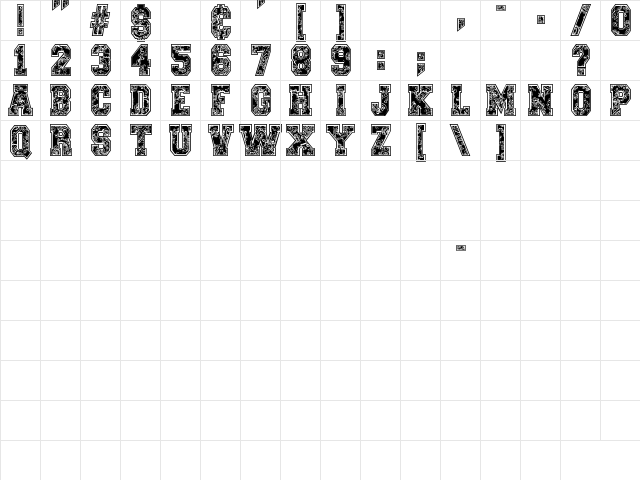
Paysley Sports Regular
| Designer | IMAGEX |
Design Context for Paysley Sports Typeface
Paysley Sports has the bold swagger of sports branding: strong, assertive letterforms designed to dominate headlines and jerseys alike.
A natural choice for gym brands, fantasy sports, jersey lettering, and action-driven headlines.
Pro Tip: Use Paysley Sports in all-caps headlines where its athletic energy can fully express itself. Pair with a solid, simple sans for supporting text.